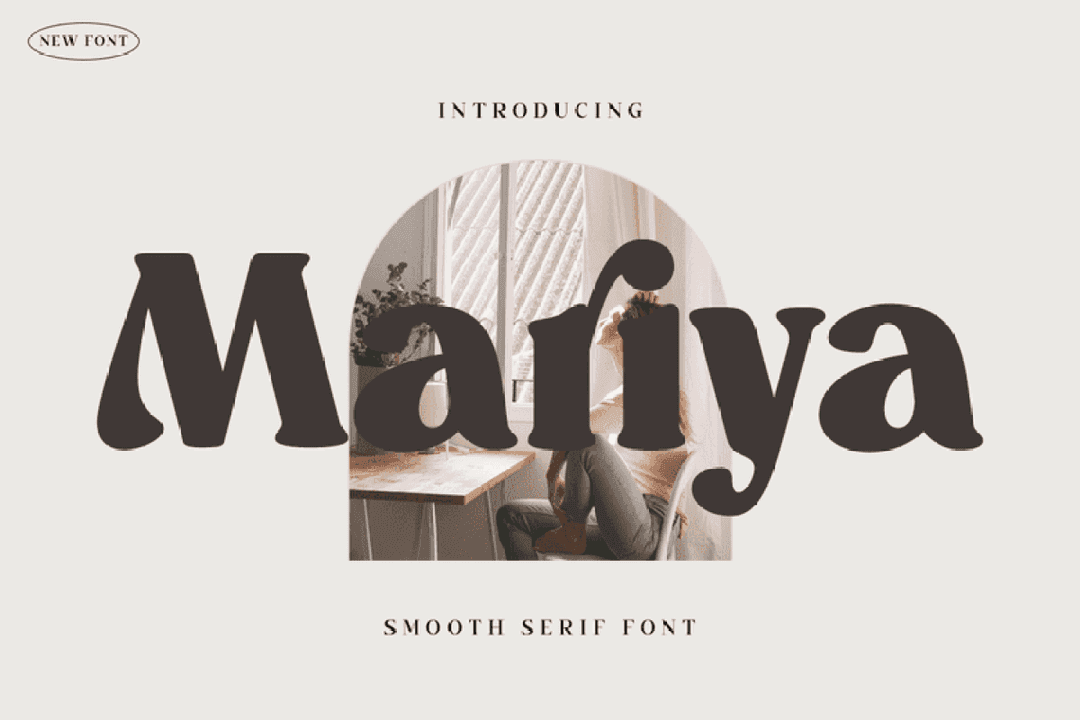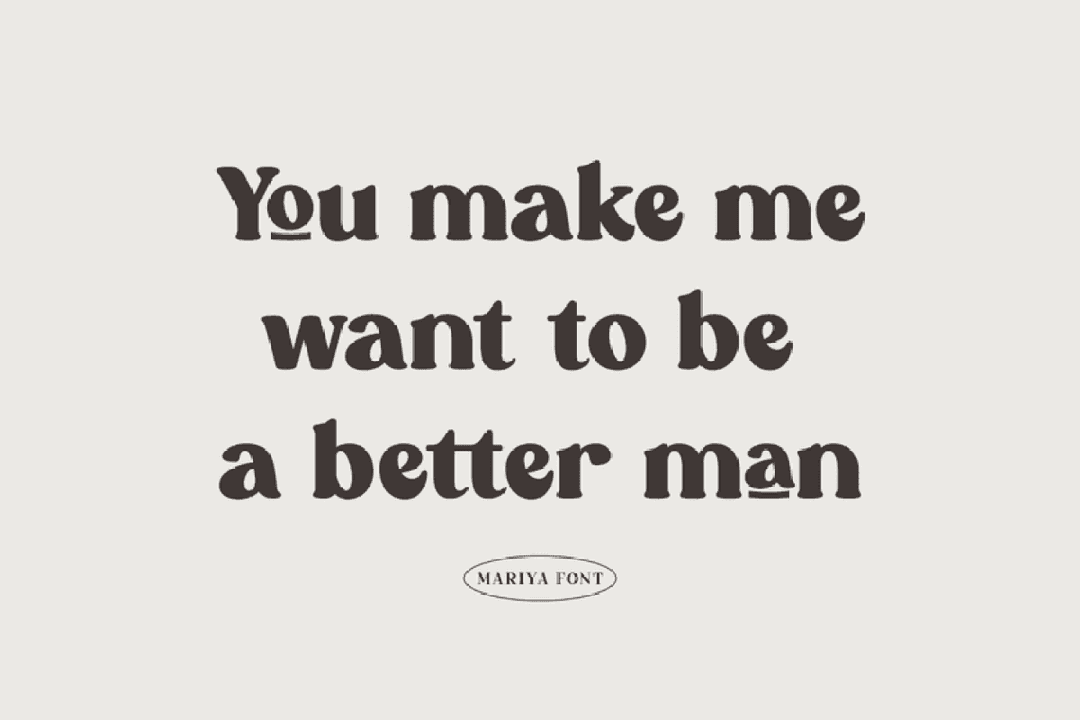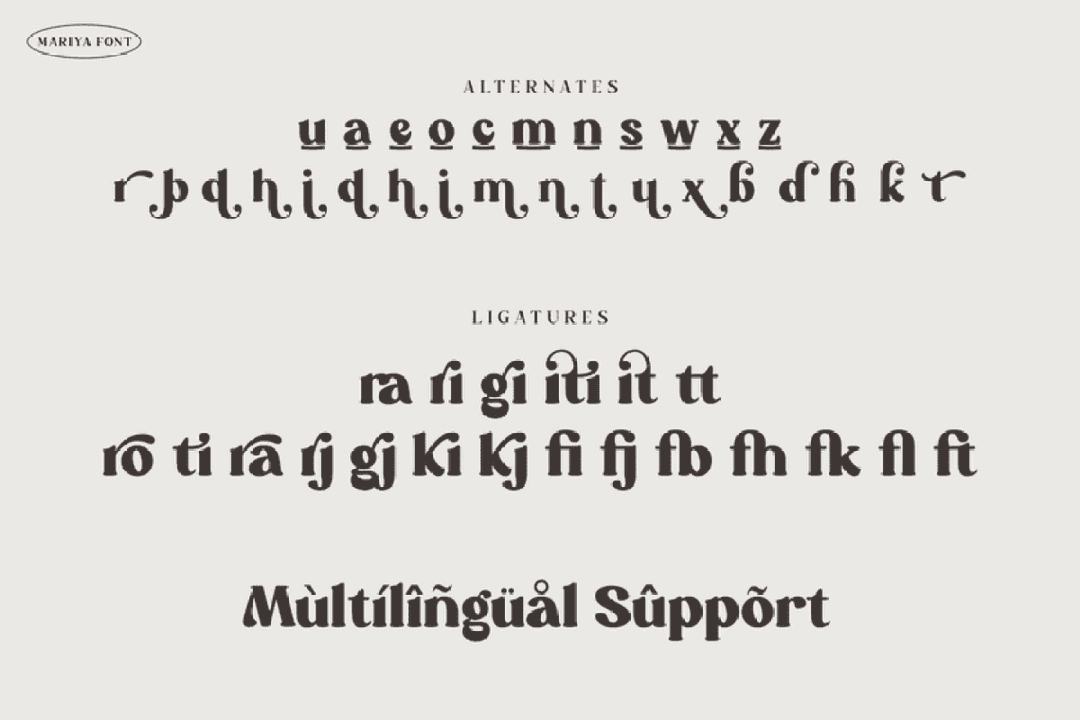
Mariya is an impressive serif font. With its classic yet natural style, this font can be used in posters, magazines film titles, advertising designs, invitations t-shirts as well as greeting cards quotes logos invitations greeting cards logos quotes logos greeting cards etc.